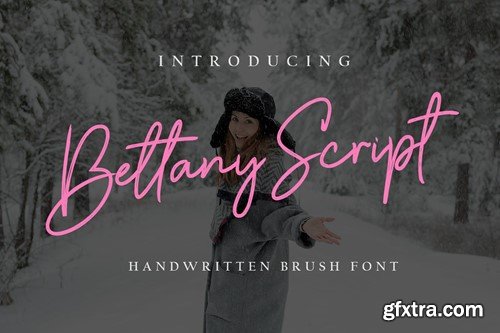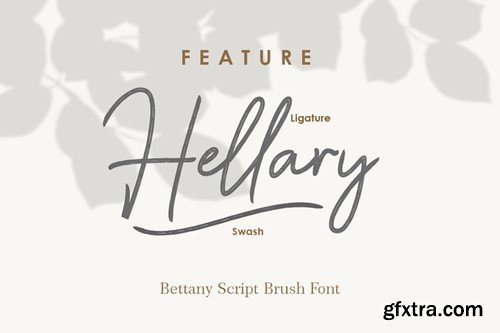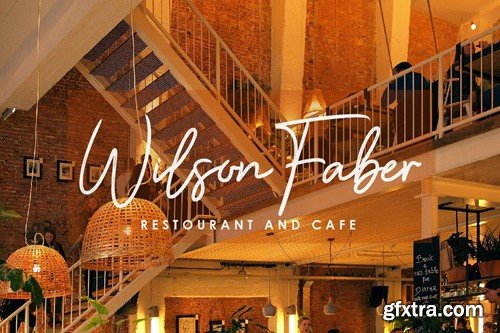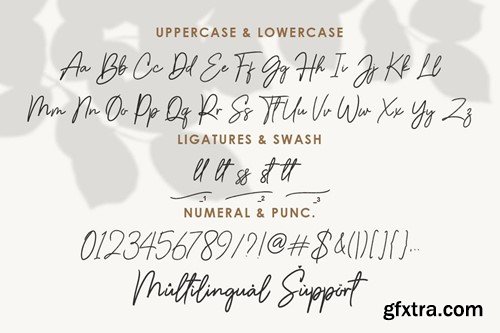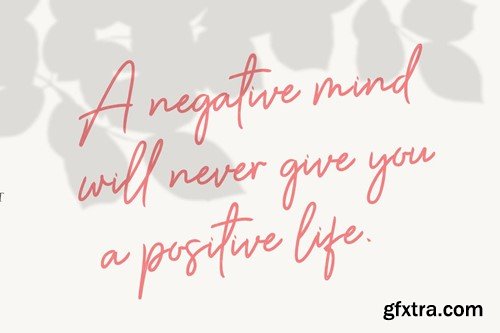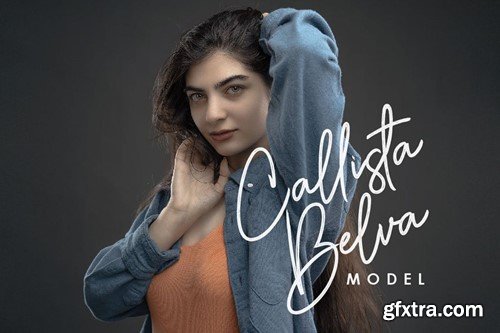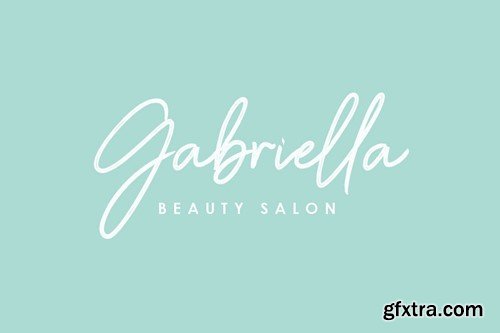
贝坦妮手写体 NCGH7S3
Bettany Script Font NCGH7S3
Bettany Script Font
Bettany Script is a beautiful and natural brush script font that exudes sophistication and elegance. Perfect for any design project that requires a hand-written touch.
• Uppercase, Lowercase, Numerals & Punctuations
• Ligature, Alternate & Swashes
• Multilingual support